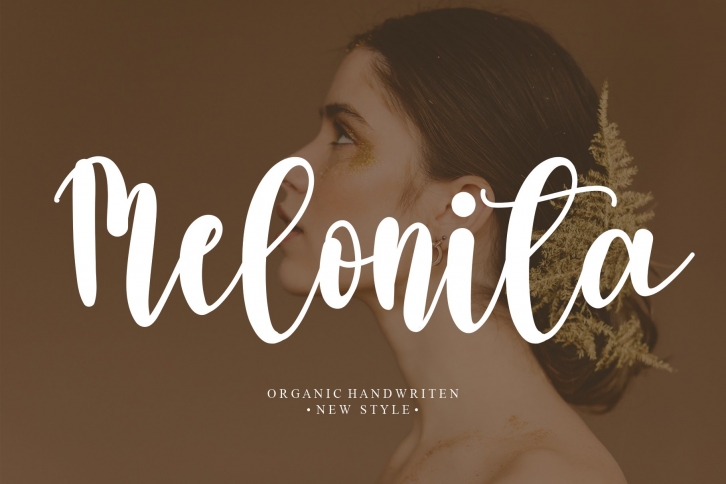
Melonita is a beautiful font that was designed by Scratchones. It's a great choice for designers and creatives who need such a font. It was released on October 16, 2021 and the file size is 2.24 MB. Melonita may give a more youthful, expressive and casual look to your project. It is a very beautiful, refined, elegant, and high-quality font.